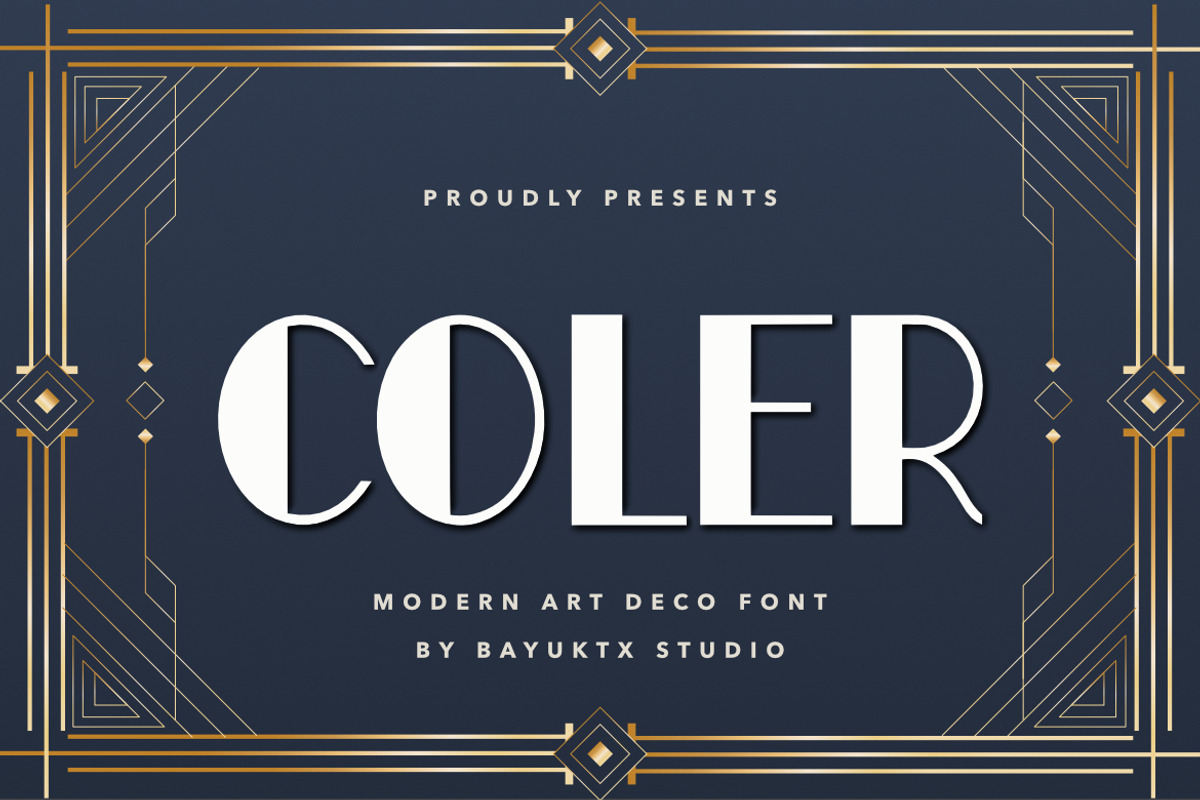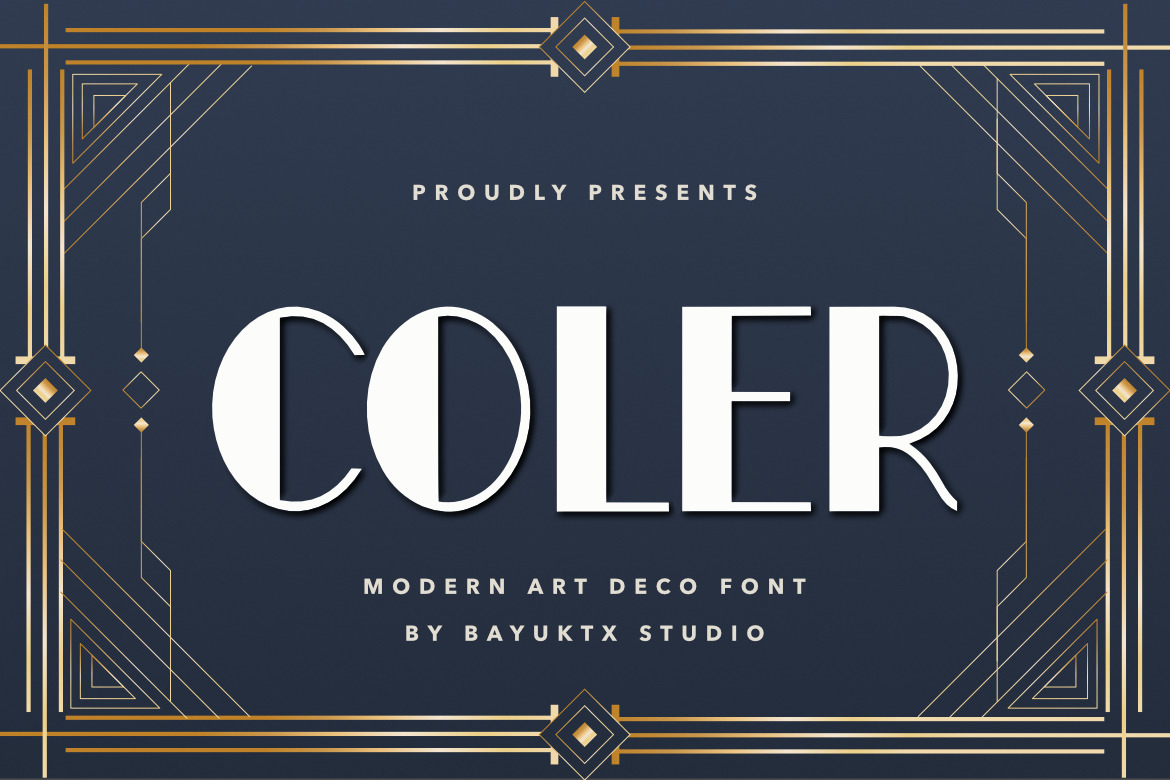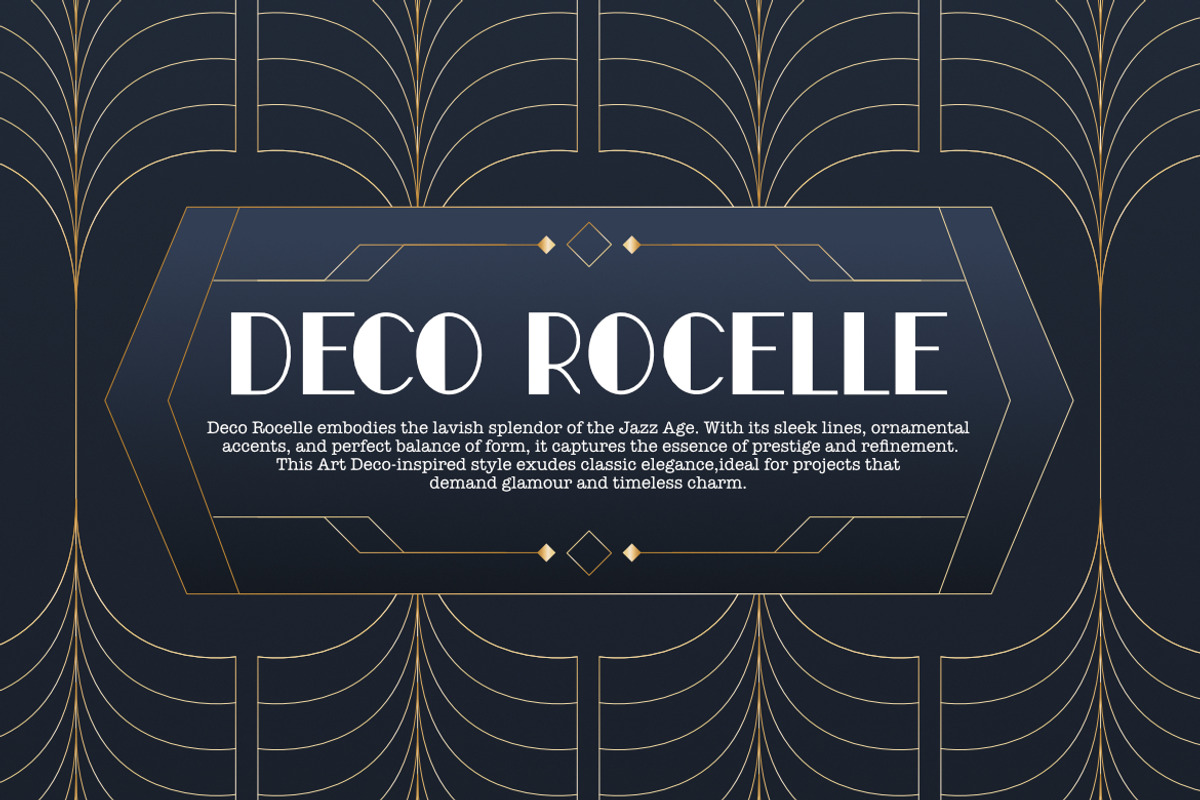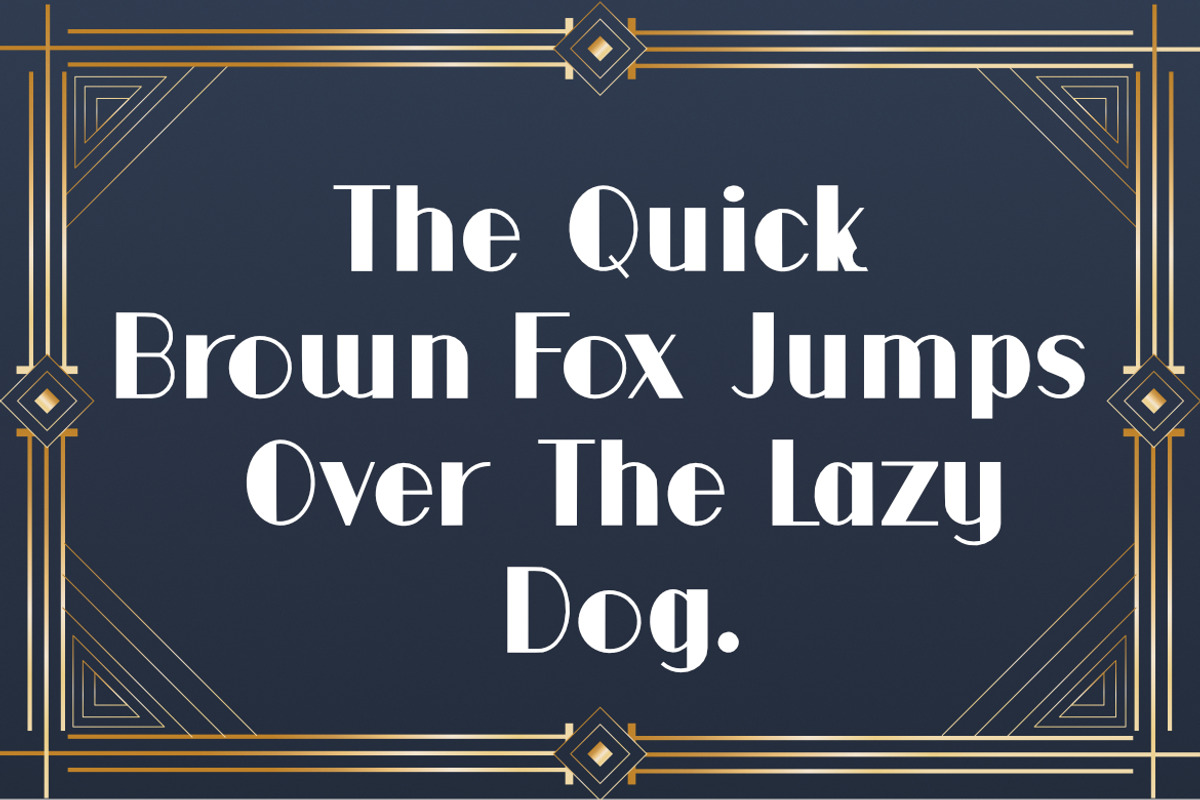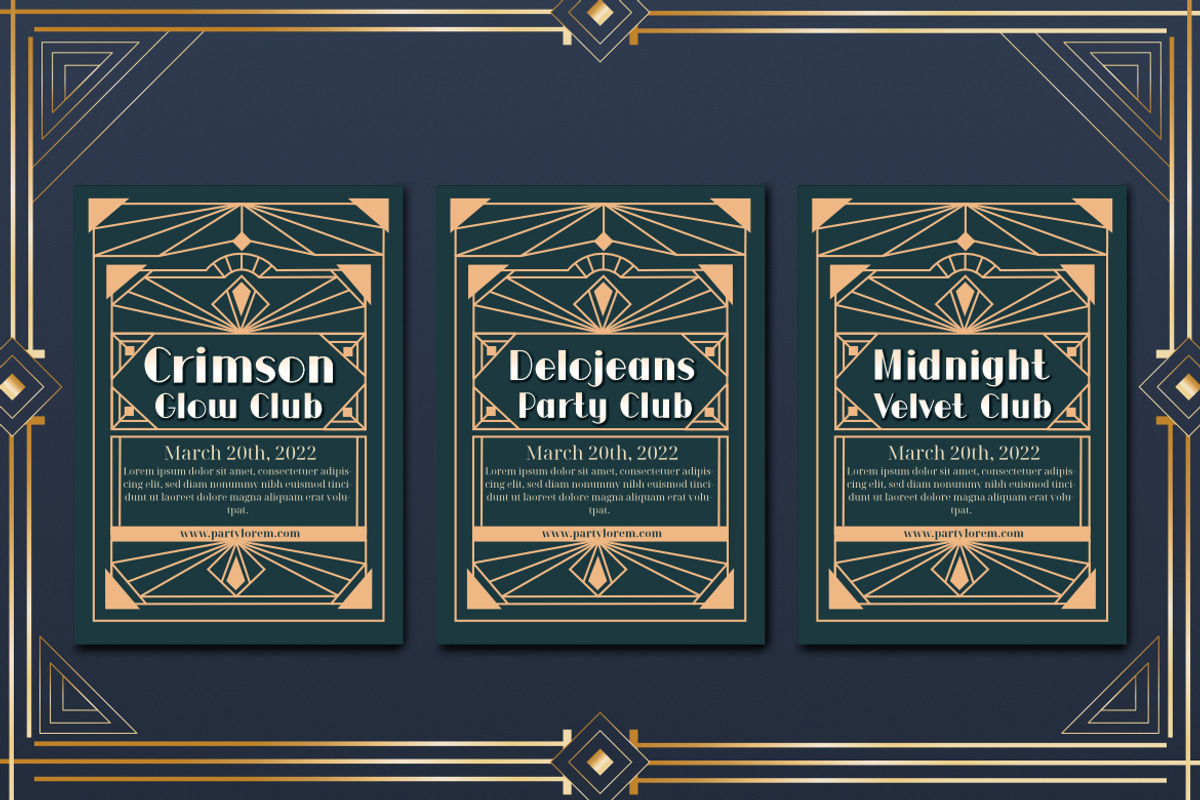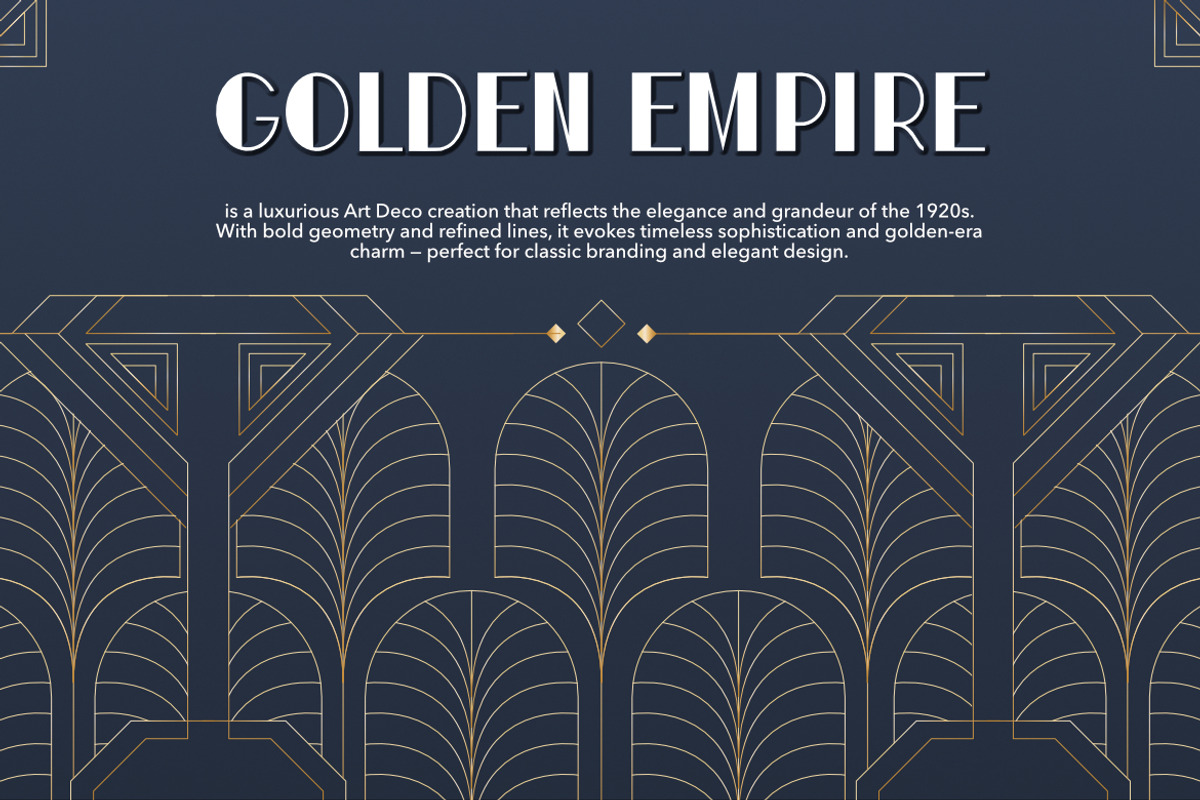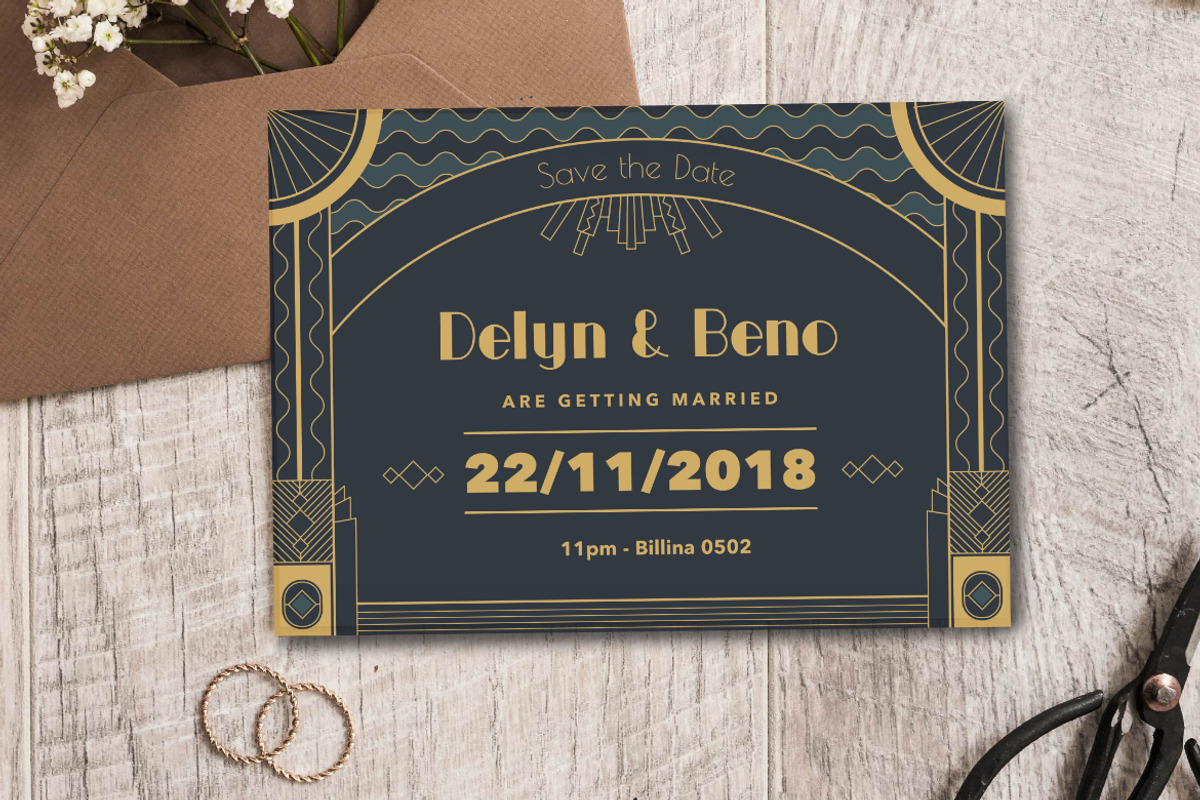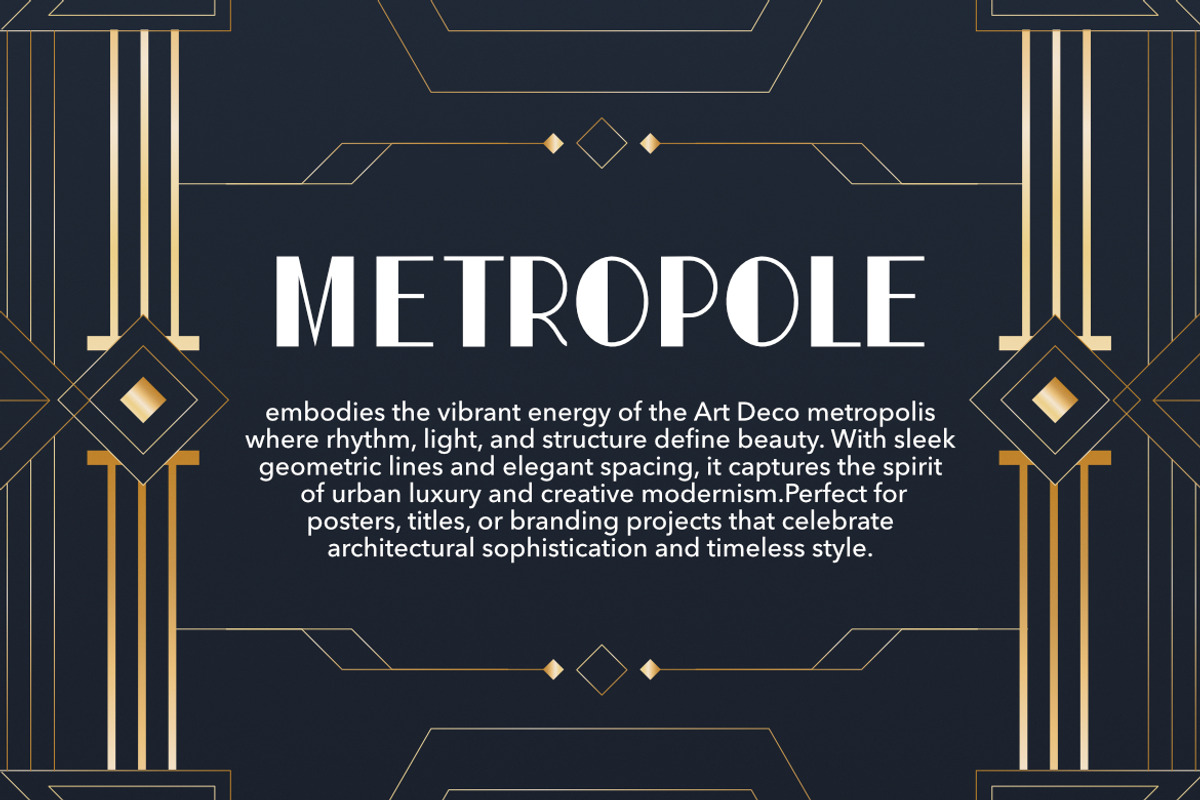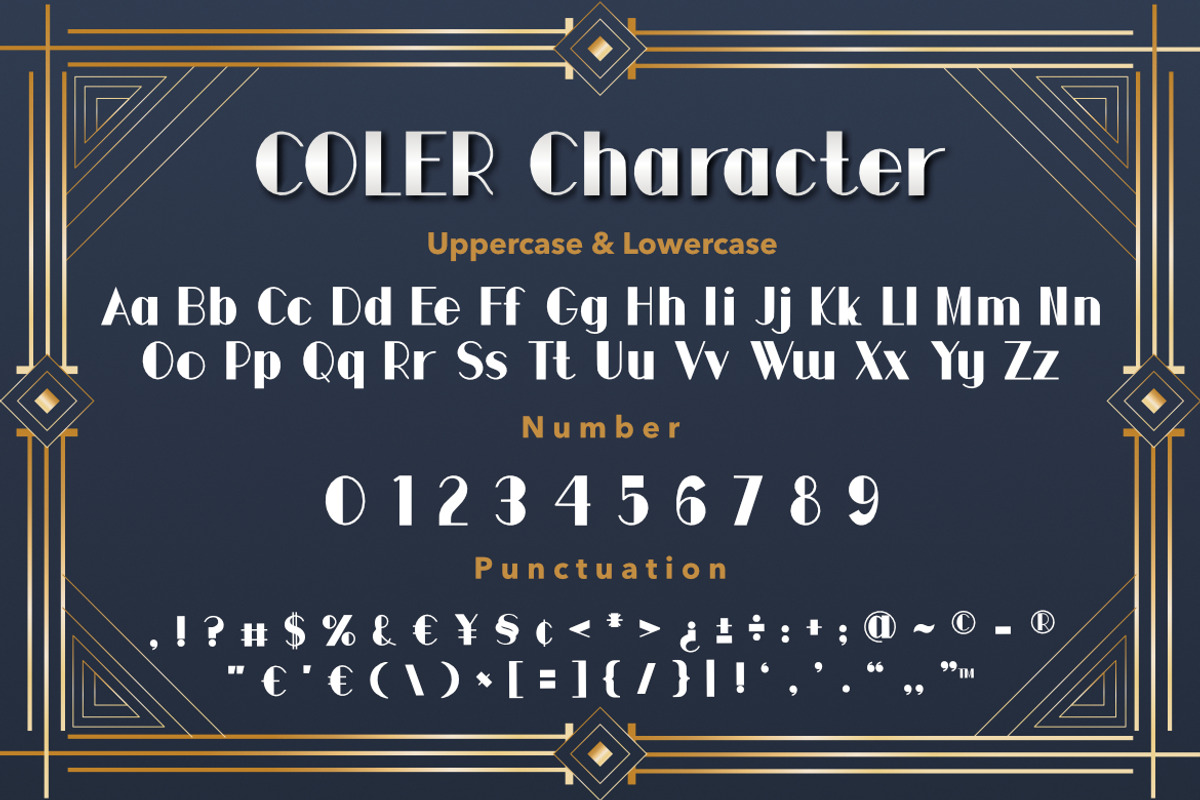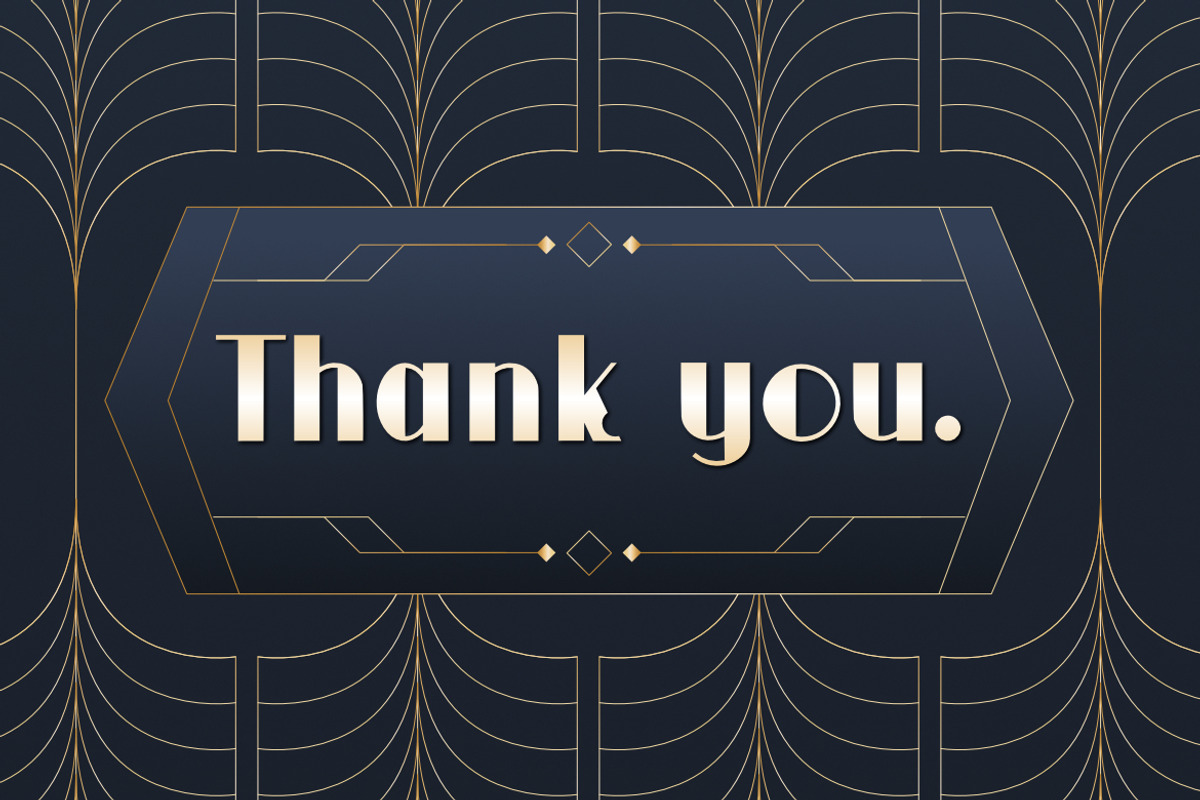
Coler Art Deco Font
Coler Art Deco Font is a sophisticated typeface inspired by the golden age of Art Deco design. With its geometric balance, elegant lines, and luxurious letterforms, Coler brings a sense of timeless glamour and modern refinement to any creative project.
This font embodies the spirit of 1920s elegance — bold yet graceful, structured yet stylish. Perfect for logos, branding, invitations, and editorial titles that seek a touch of classic luxury and architectural beauty. Each curve and line is crafted to evoke confidence, sophistication, and artistic precision.
Suitable For :
- Luxury Branding & Logos
- Posters & Editorial Headlines
- Packaging & Invitations
- Fashion & Lifestyle Design
- Art Deco & Retro Projects
With Coler Art Deco Font, your designs will radiate elegance and capture the timeless beauty of the Deco era — refined, confident, and irresistibly stylish.